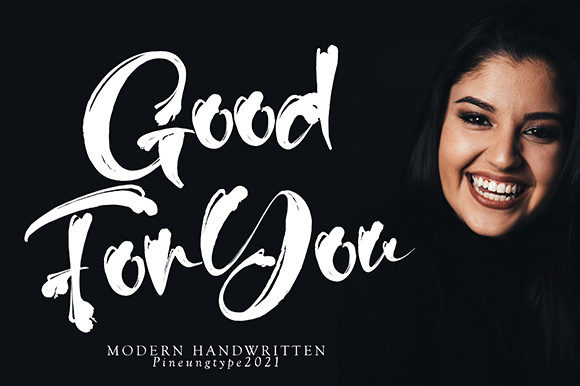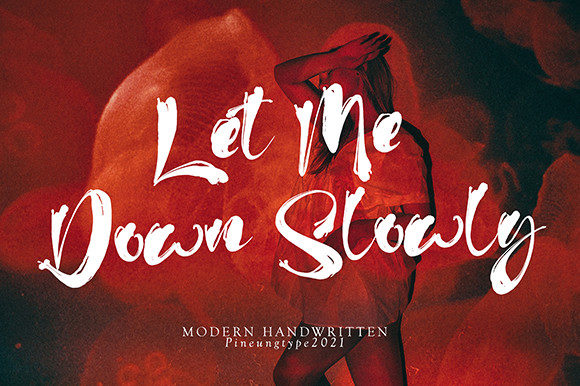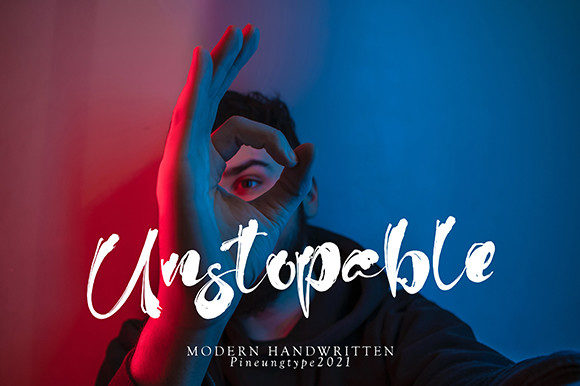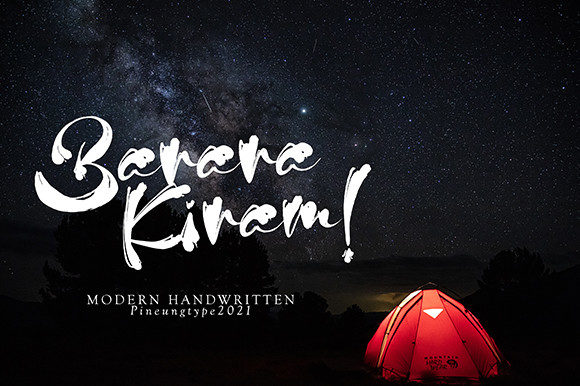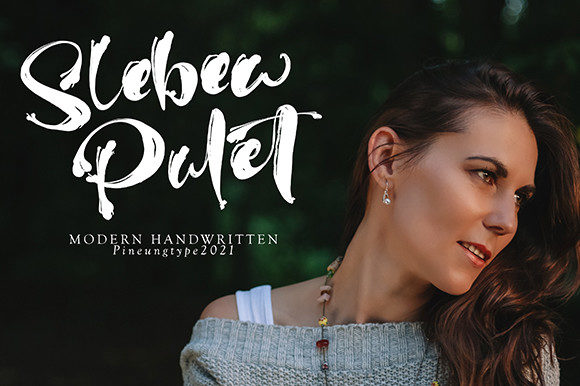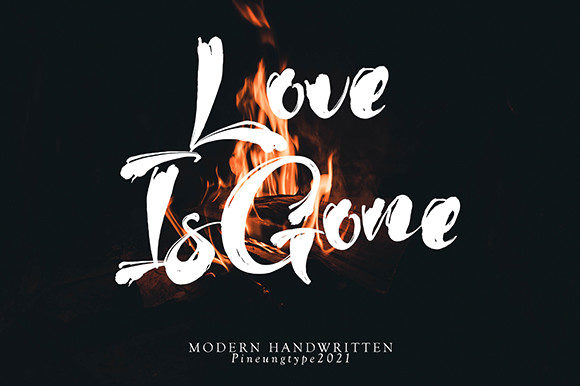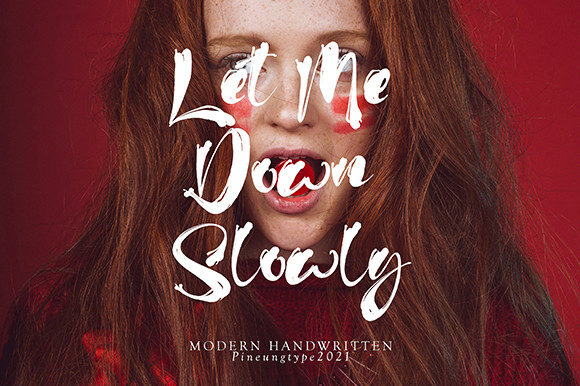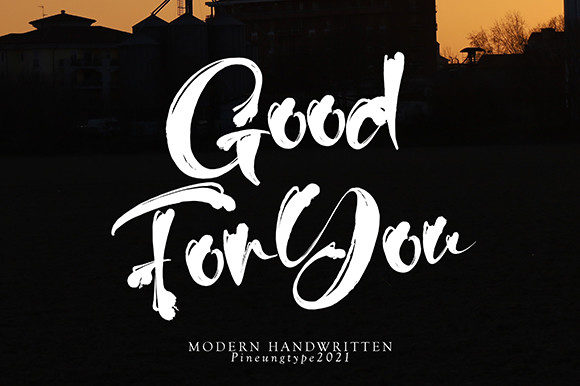
Good for You Font
About Good for You Font
Good For You is a chic, trendy script font that emanates confidence and versatility. Its stylish alternates and ligatures make this font the perfect match for any project.